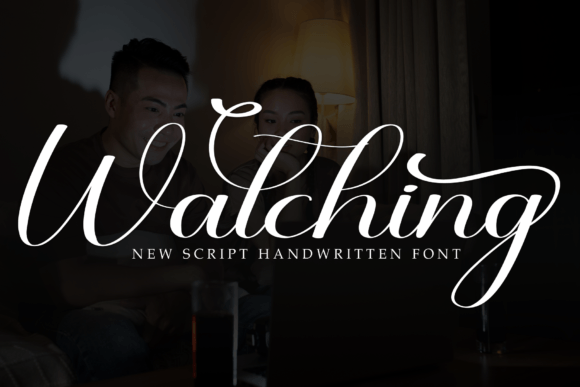
Prepare yourself to be mesmerized by Watching Font, a handcrafted masterpiece that will captivate your senses and elevate your designs to new heights. Step into a world of elegance and charm, where each letter dances across the page with a graceful fluidity that will leave you breathless.
Watching Font is a script font family that exudes warmth and friendliness, inviting you to embrace its cozy embrace. Its delicate strokes and flowing curves create a sense of intimacy, making it perfect for adding a personal touch to your creative projects. Whether you're designing wedding invitations, greeting cards, or heartfelt letters, Watching Font will effortlessly convey your sentiments with a touch of sophistication.
Immerse yourself in the beauty of Watching Font and allow your imagination to soar. Its versatility knows no bounds, lending itself effortlessly to a wide range of design styles. From whimsical illustrations to eye-catching logos, this font has the power to transform your ideas into captivating realities. Unleash your creativity and let Watching Font take you on a journey of artistic exploration.